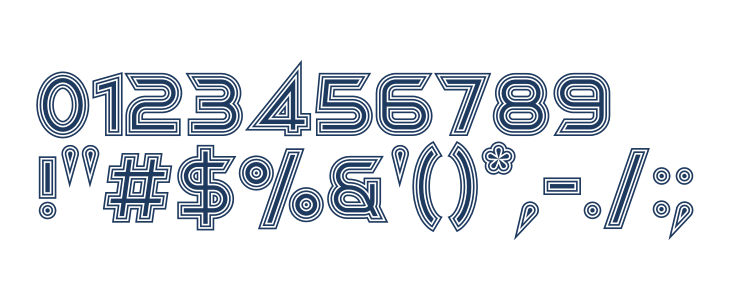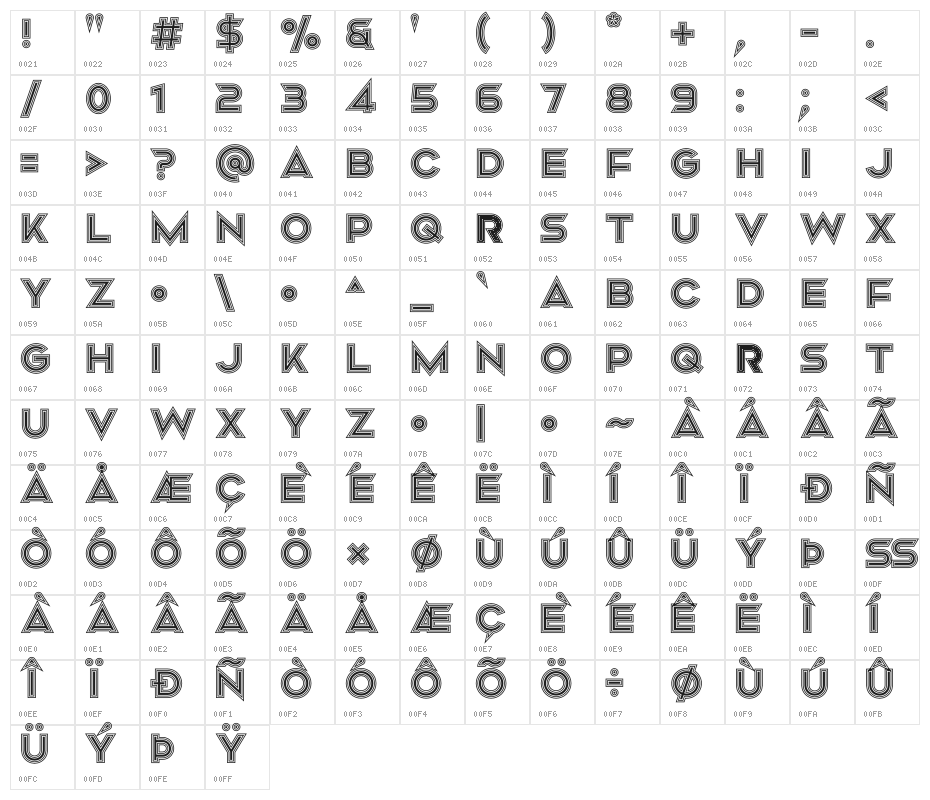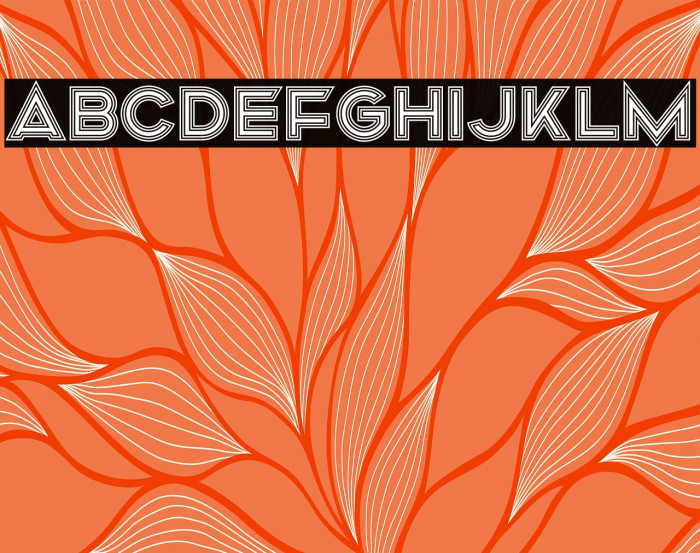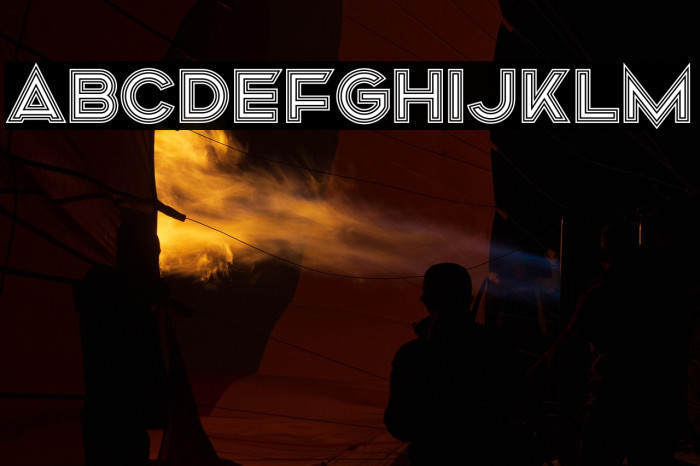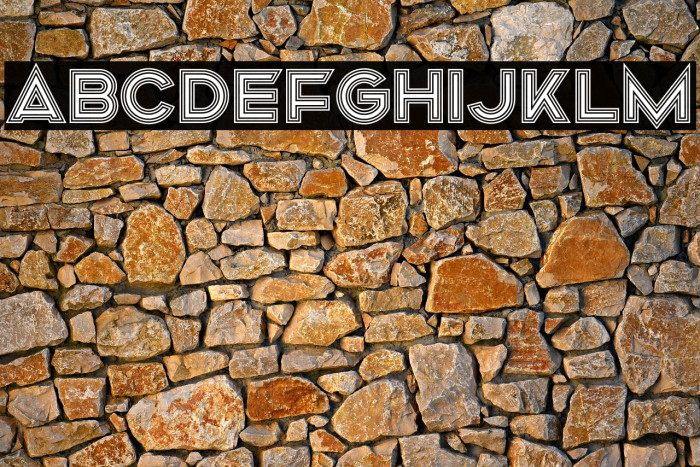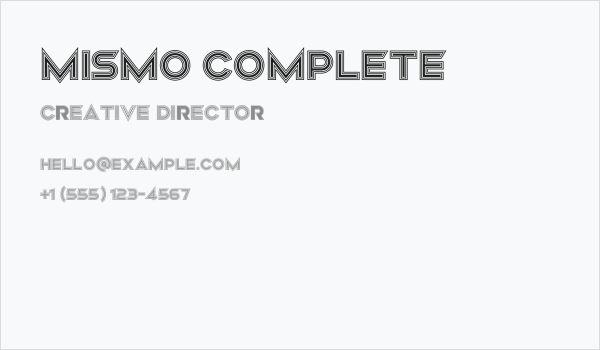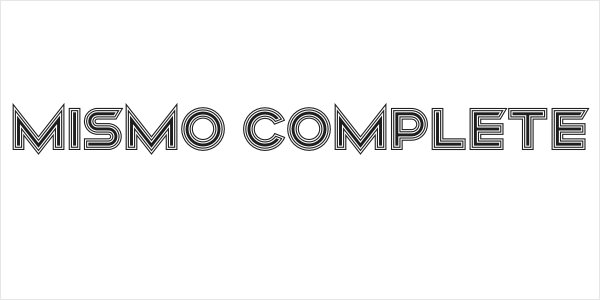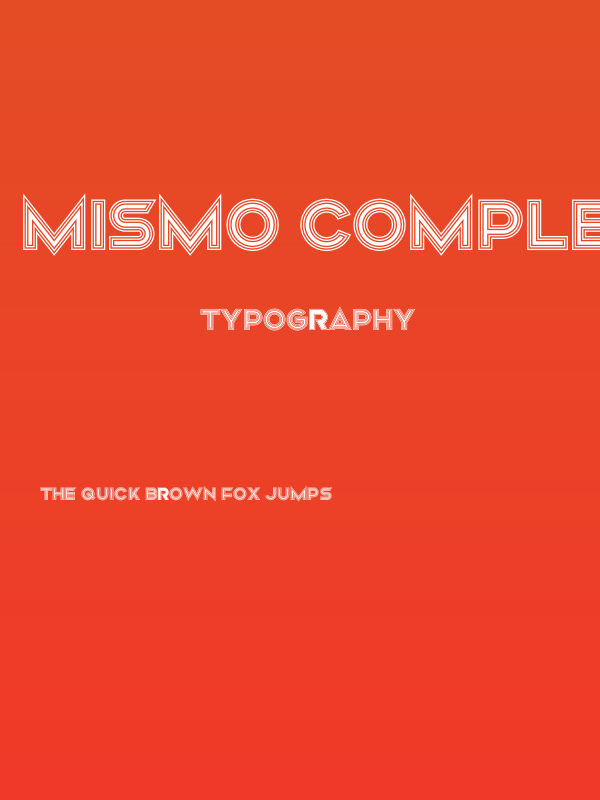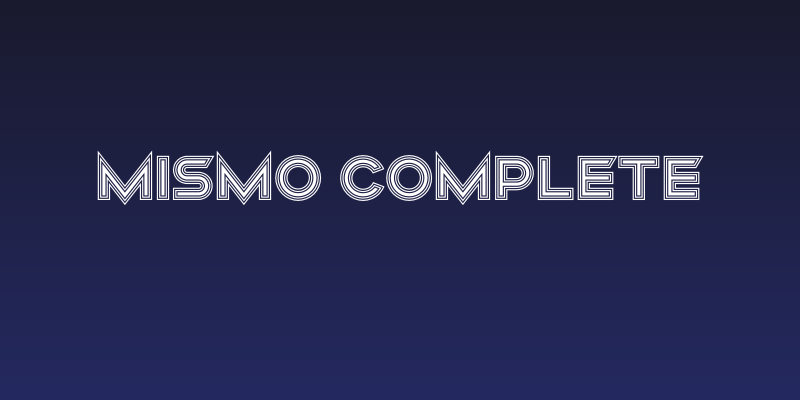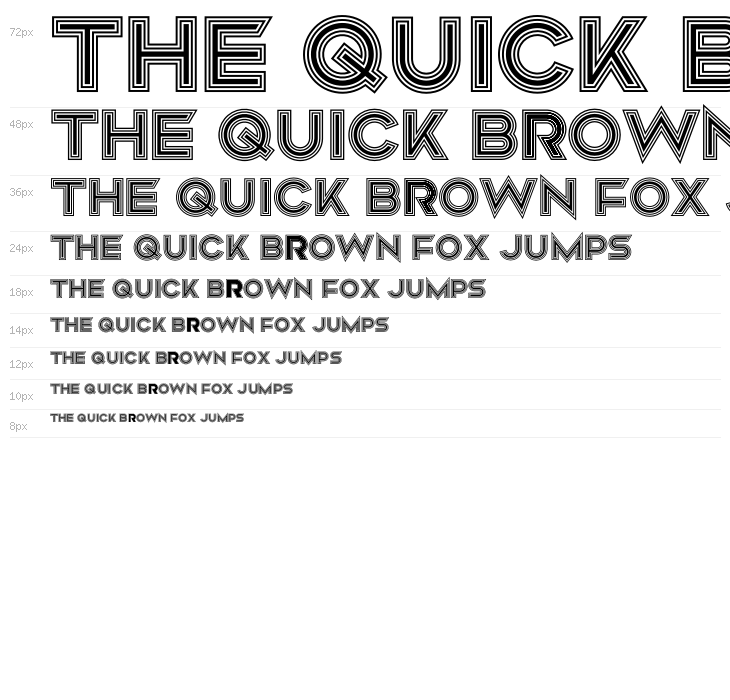
Mismo Complete Font
Mismo Complete Description
This font features a bold, geometric design with a distinct outline style that gives it a three-dimensional appearance. Each character is crafted with precision, showcasing clean lines and sharp angles. The uppercase and lowercase letters maintain a consistent width, while the numerals and special characters complement the overall aesthetic. The font's unique style makes it stand out, offering a modern and dynamic look that is both eye-catching and versatile.